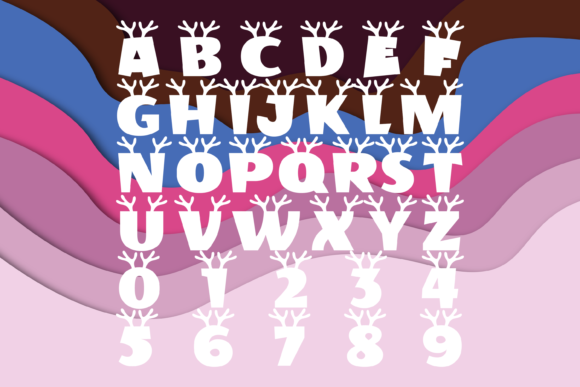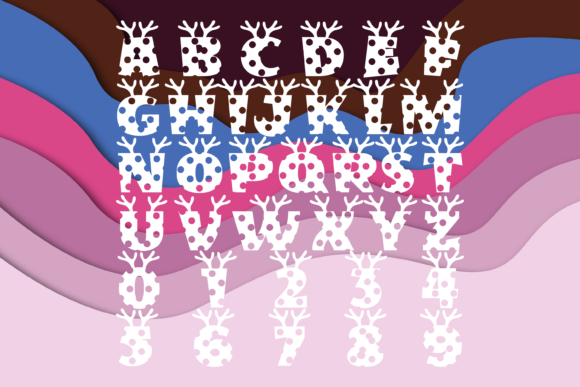
Introduction to Polka Reindeer Font
Do you remember the moment when you were brainstorming ideas for your next creative project, and suddenly, a spark of inspiration hit you? Perhaps it was a quirky character design or a whimsical background element that set your imagination ablaze. For designers like you, discovering the perfect font can be a game-changer. Enter the enchanting Polka Reindeer Font, a delightful decorative font that’s sure to add a touch of magic to your creations.
With its playful, hand-drawn feel and cheerful personality, the Polka Reindeer Font is an ideal design resource for cartoon-related projects, children’s games, and more. Whether you’re working on a graphic design, a digital illustration, or a web design, this font is a valuable asset to have in your toolkit. And the best part? You can download it for free, perfect for designers on a budget or those who want to experiment with new ideas.
Key Features of Polka Reindeer Font
- Unique, whimsical design perfect for holiday-themed creative projects and festive designs.
- Includes 3 unique styles and a range of font sizes, making it suitable for various design applications.
- Perfect for designers looking for a fun and playful design resource to add a touch of magic to their projects.
Honest Review: Polka Reindeer Font
As a designer, I’m always on the lookout for high-quality design resources that can elevate my creative projects. The Polka Reindeer Font is one such resource that caught my attention, and I’m excited to share my honest review with you.
What works well: ✨ The font is incredibly versatile, making it suitable for a wide range of design projects, from holiday-themed posters to branding materials. The Polka Reindeer Font also features a transparent background, which is perfect for designers who want to add a touch of whimsy to their designs. Plus, it’s available for free download, making it an excellent addition to any design resource collection.
What could improve: ⚠️ The font’s limitations lie in its limited character set, which may not be ideal for designers who need to typeset complex text. Additionally, the font’s bold weight may not be suitable for all design applications, particularly those requiring precise typography.
Overall, I’m impressed with the Polka Reindeer Font’s unique charm and versatility. While it may have some limitations, it’s an excellent choice for designers who want to add a touch of fun and whimsy to their creative projects.
Common Use Cases for Polka Reindeer Font
The Polka Reindeer Font is a versatile design resource that can be used in a variety of creative projects, including holiday-themed designs, children’s books, and advertising materials. It’s also a great choice for designers who want to add a fun and playful touch to their designs.